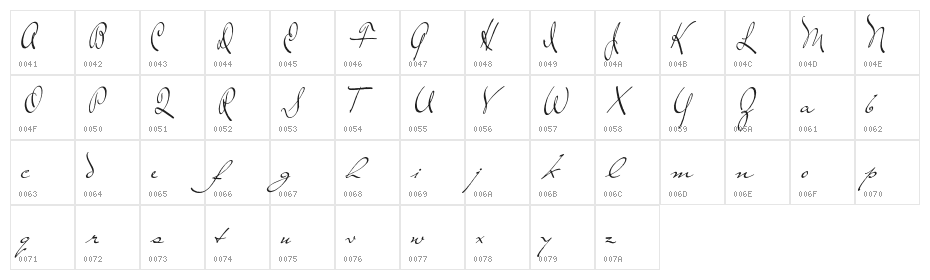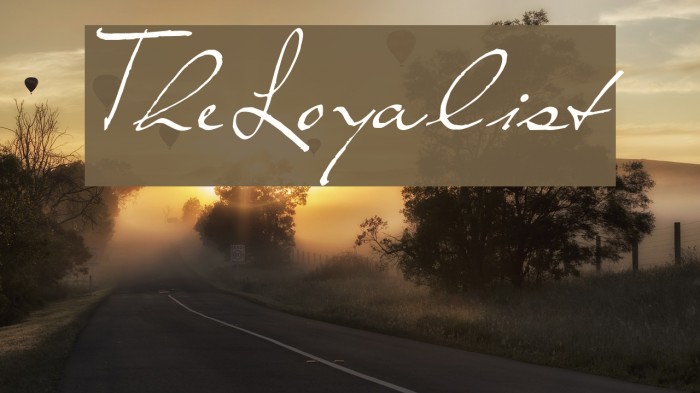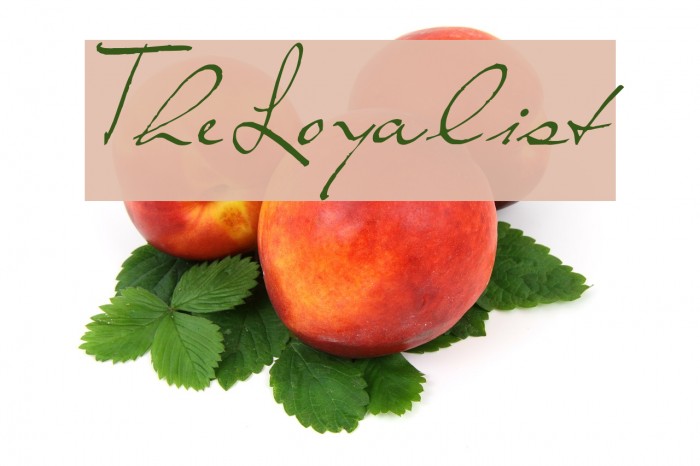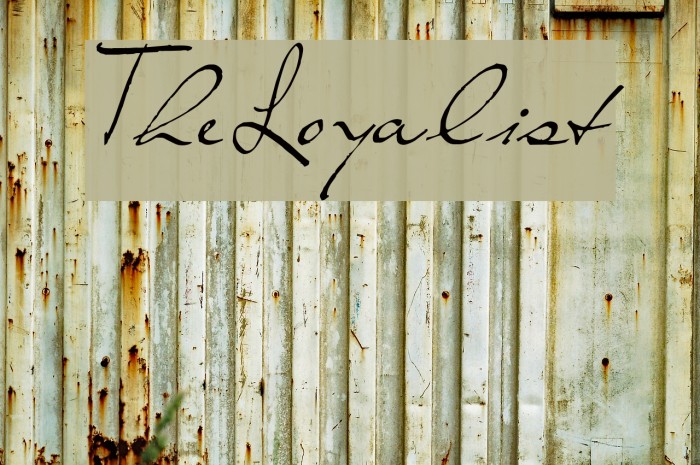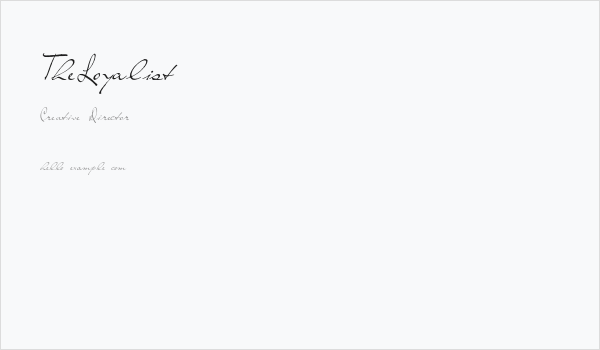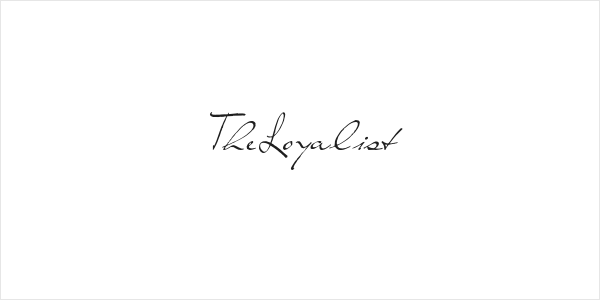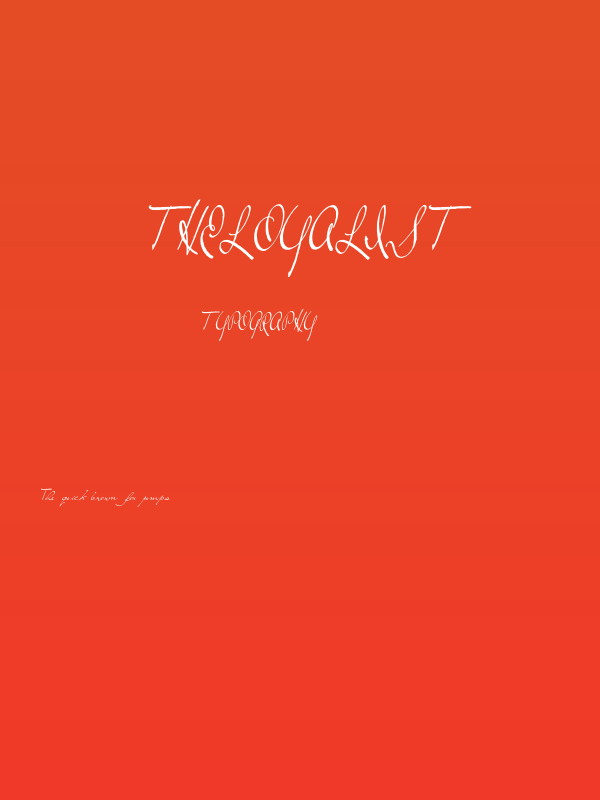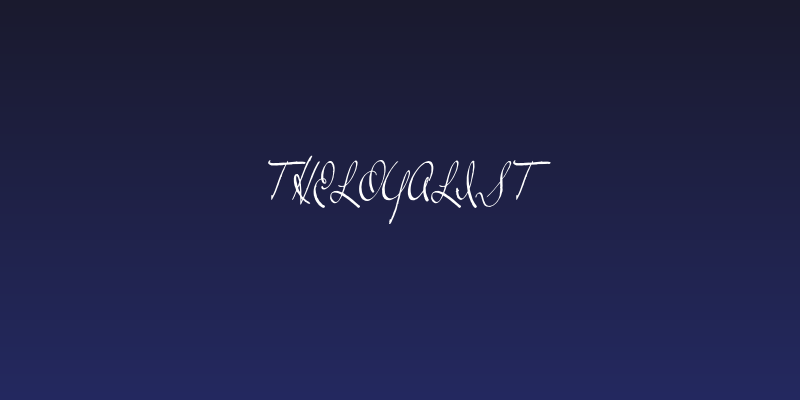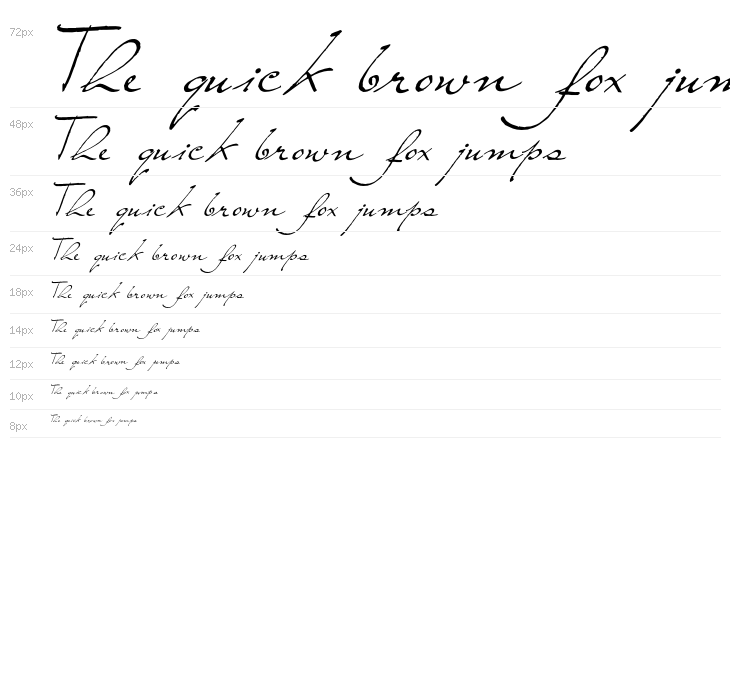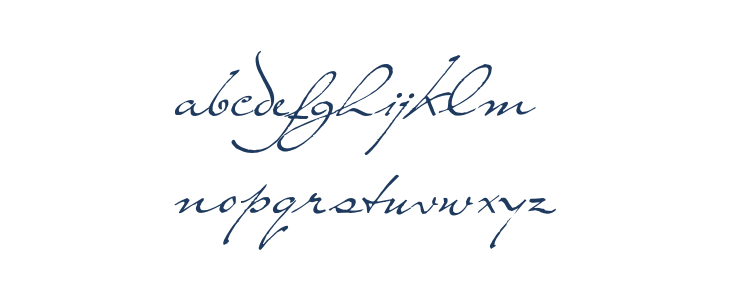
TheLoyalist Font
TheLoyalist Description
This elegant script font features a flowing, cursive style that mimics traditional calligraphy. The characters are intricately designed with varying stroke widths, creating a dynamic and sophisticated appearance. The uppercase letters are particularly ornate, with flourishes and loops that add a touch of grandeur. The lowercase letters maintain a consistent style, offering a smooth and connected look that enhances readability while retaining an artistic flair. This font is ideal for projects that require a touch of elegance and formality, such as wedding invitations, certificates, or high-end branding materials.
| Use Case | Logos, Invitations, Formal documents |
| Proposed Projects | Wedding invitations, certificates, luxury branding, formal event materials. |